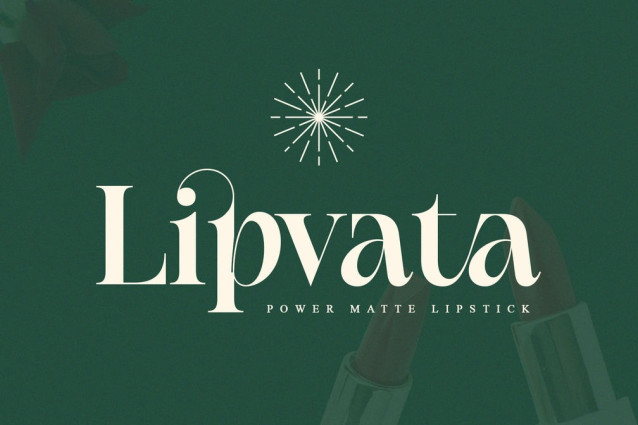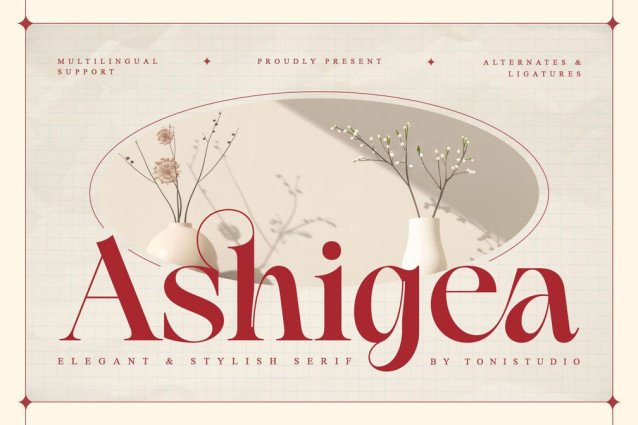
Ashigea Font is an elegant and stylish serif font designed to bring luxury and sophistication to any project. Featuring unique alternates and ligatures, this typeface combines timeless classic beauty with a modern touch. With multilingual support, it is perfect for global use in branding, editorials, fashion, packaging, and invitations.
Available in OTF, TTF, and WOFF formats, Ashigea ensures smooth usability across design software and websites. Whether for a professional logo, high-end magazine, or wedding stationery, this versatile serif font delivers a premium and classy impression for your creative projects.